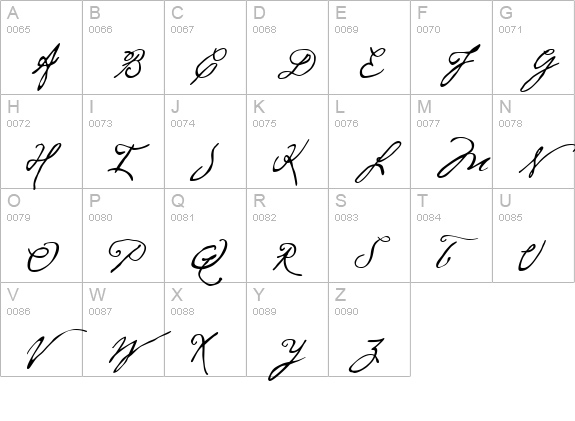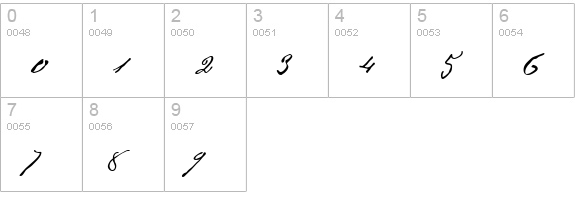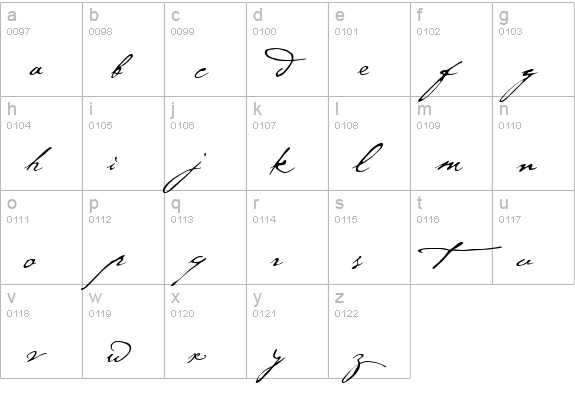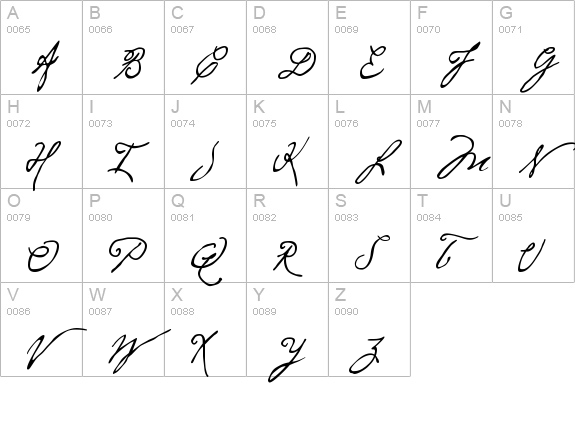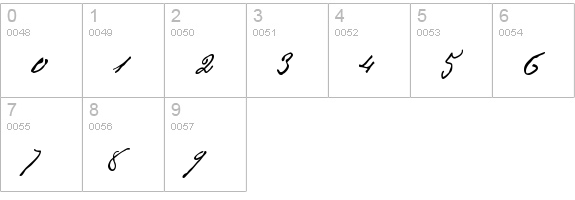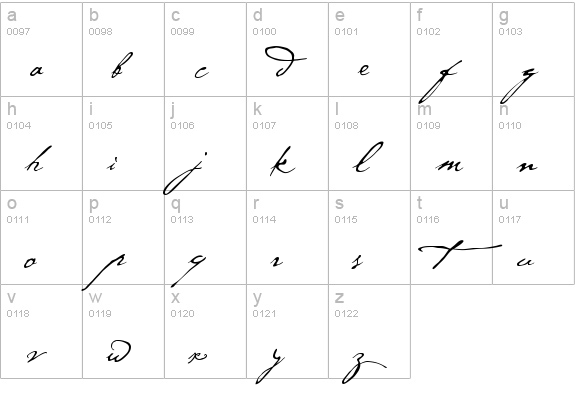
P22 Cezanne Regular is the standard, neutral variant in the P22 typeface family \xE2\x80\x94 well suited to general body text, paragraphs, and standard typographic work.
P22 Cezanne Regular font is a classic and timeless typeface inspired by the renowned French artist Paul Cezanne. With its elegant and sophisticated design, this font exudes a sense of artistic flair and creativity. Perfect for adding a touch of refinement to any project, P22 Cezanne Regular font is versatile and well-suited for a variety of design applications. This font is available for free download at FontsMarket.com, making it easily accessible to designers, artists, and creatives looking to enhance their work with a touch of elegance and style. Whether you're working on a branding project, editorial design, or any other creative endeavor, P22 Cezanne Regular font is sure to elevate your work and make a lasting impression. Unlock your creativity and bring your designs to life with this stunning and timeless typeface.